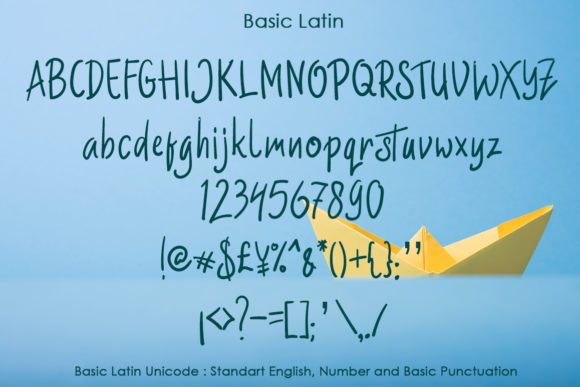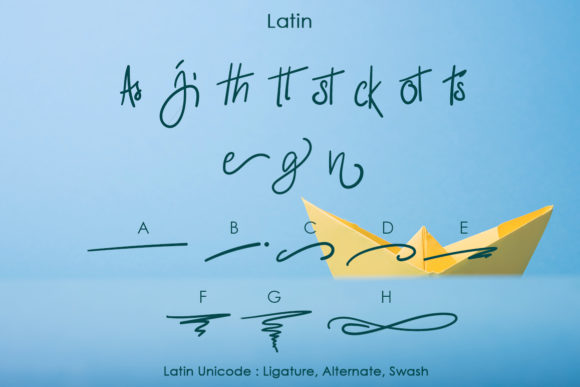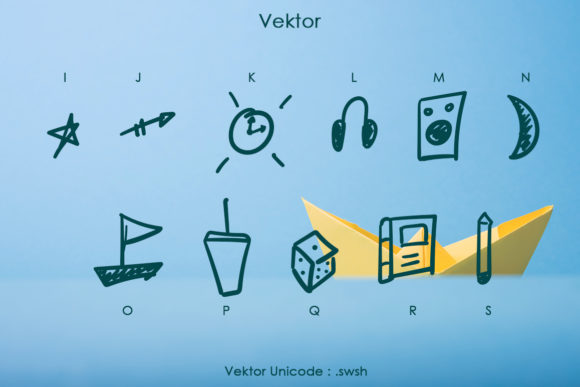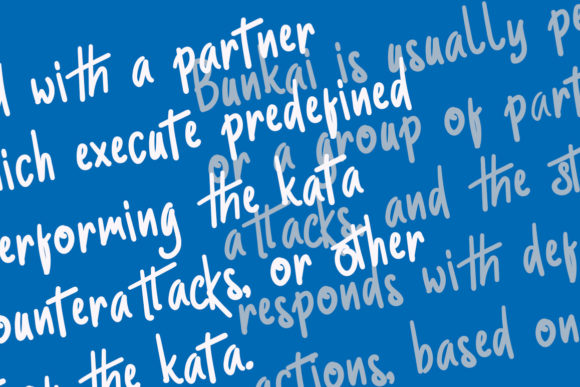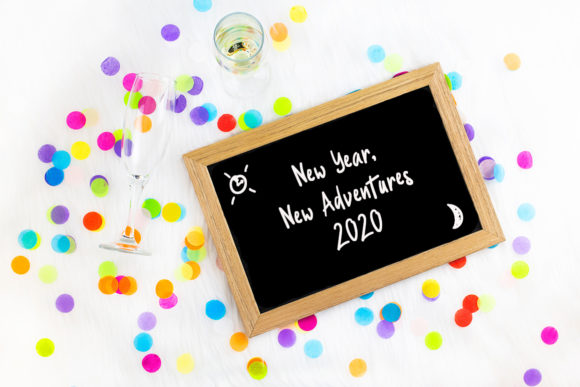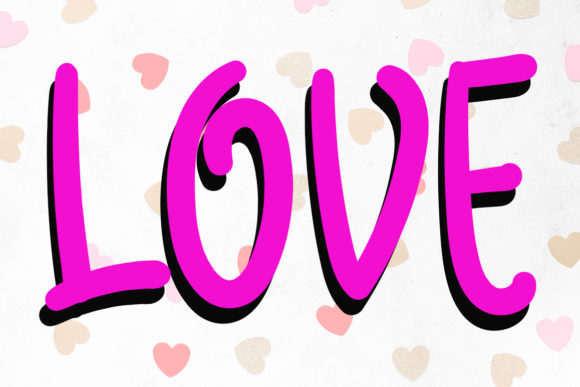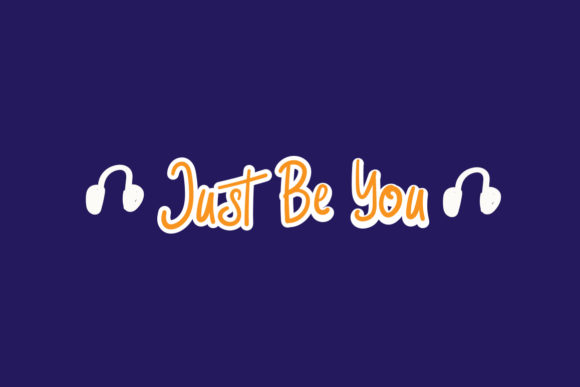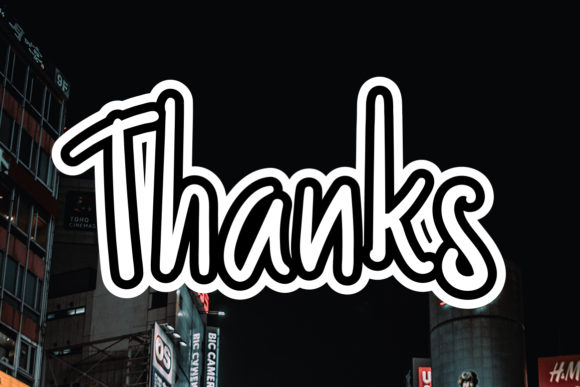
HomeScript FontsJisman Font Script Fonts Jisman Font FacebookXPinterestWhatsApp Jisman Font Poster 2 Jisman Font Poster 3 Jisman Font Poster 4 Jisman Font Poster 5 Jisman Font Poster 6 Jisman Font Poster 7 Jisman Font Poster 8 Jisman Font Poster 9 About Jisman Font Jisman is a simple, cute, multipurpose marker handwritten font, suitable for a wide range of projects! DOWNLOAD ON CREATIVE FABRICAThis font is sold and delivered by Creative Fabrica. Font Canyon may earn a commission if you buy through this link. People also explored Socialitta Font Strawberry Cheesecake Font Love Coffee Font Harry Sunday Font Rain Font Mozer Havana Font Kunze Lintingdaon Script Font 353 0 TagsJisman Font Previous articleBellonion FontNext articleAmsterlin Font LEAVE A REPLY Cancel reply Comment: Please enter your comment! Name:* Please enter your name here Email:* You have entered an incorrect email address! Please enter your email address here Website: Save my name, email, and website in this browser for the next time I comment. Personal Use Free Ammanda Personal Use Free Read more about this font Boldist Personal Use Free Read more about this font Nottingsam Personal Use Free Read more about this font Bashira Personal Use Free Read more about this font BLOG Modern Sans-Serif Fonts That Brands Love in 2025 In 2025, modern sans-serif fonts remain a top choice for brands looking to project clarity, professionalism, and... Best Fonts for T-Shirt Design – Top 2025 Picks Free vs Paid Fonts: Why Investing in Premium Fonts Is Worth It To increase your work productivity, choose the most readable fonts.